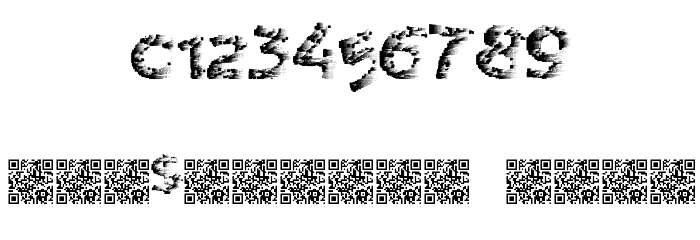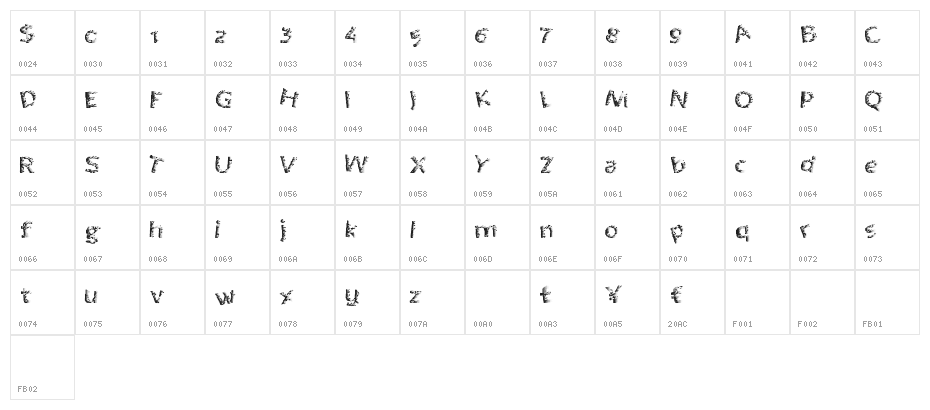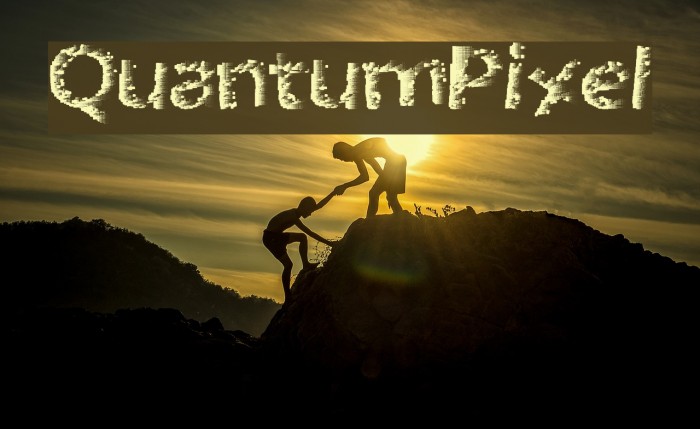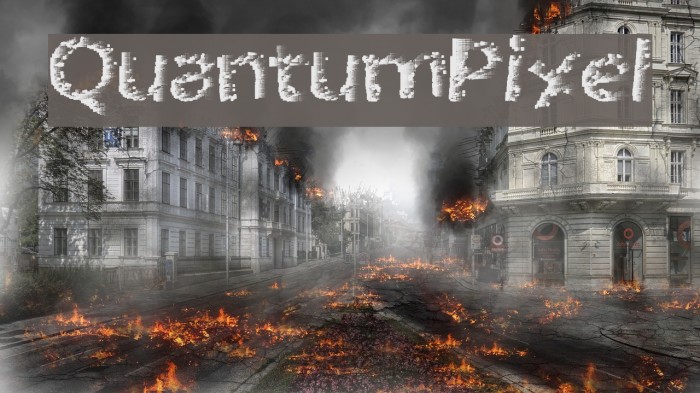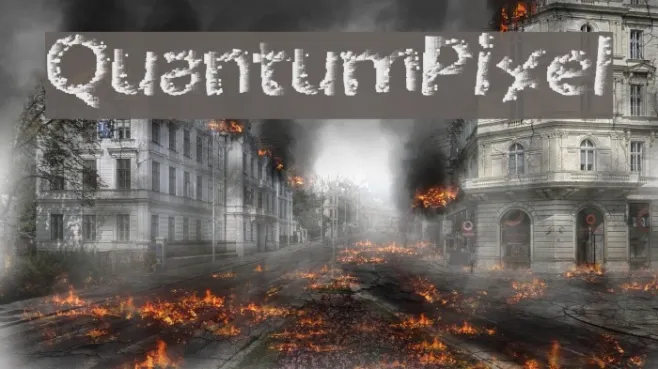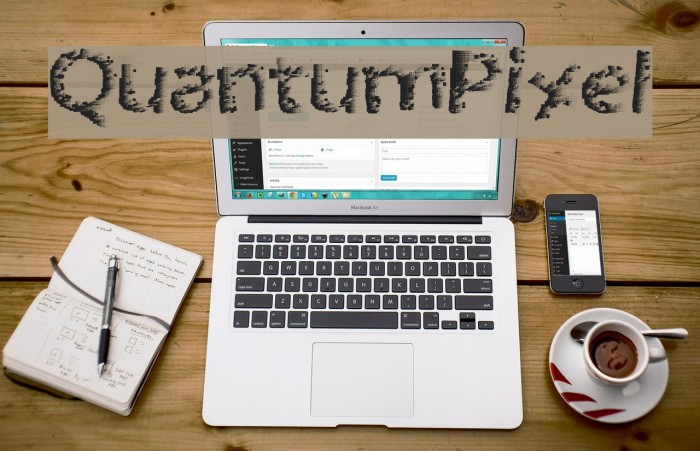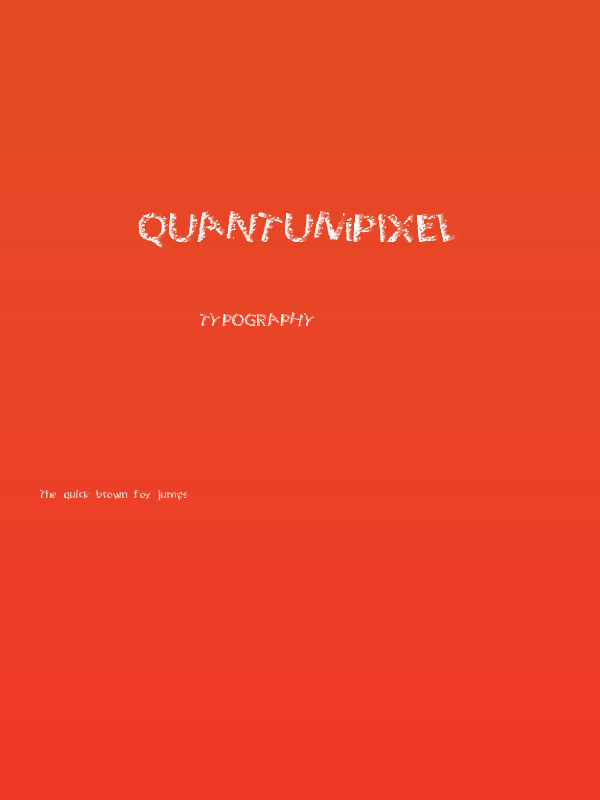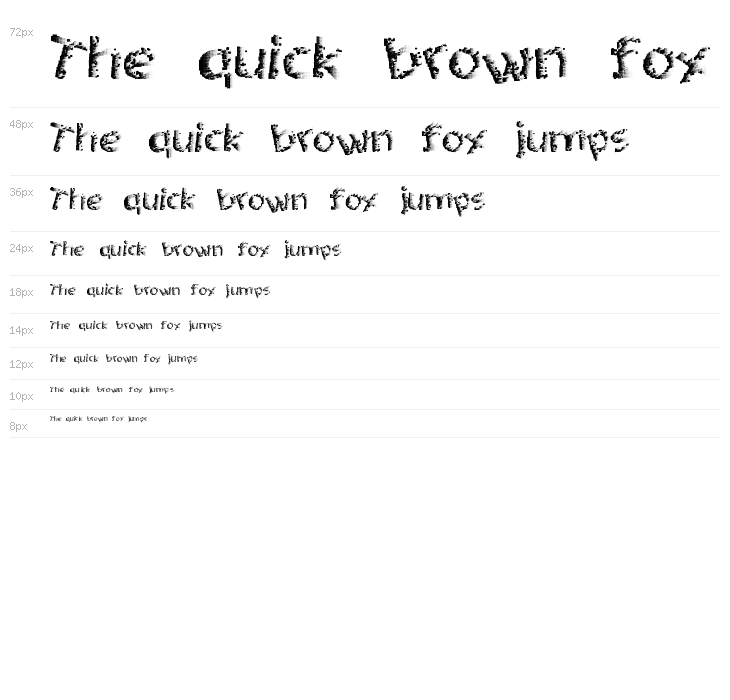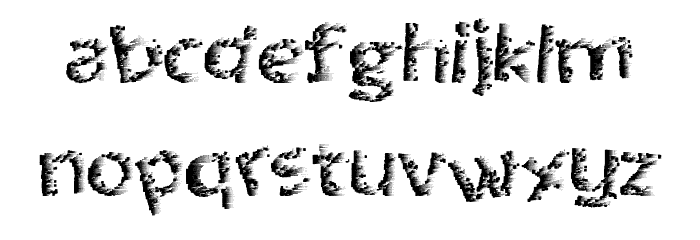
QuantumPixel Font
QuantumPixel Description
This font features a unique, pixelated design that gives it a digital and modern appearance. Each character is composed of small, fragmented blocks, creating a textured and dynamic look. The uppercase and lowercase letters maintain consistent proportions, while the numbers and special characters follow the same stylistic approach. The font's playful and tech-inspired aesthetic makes it suitable for creative projects that aim to capture a futuristic or digital theme.
| Proposed Projects | Ideal for digital art projects, tech-themed posters, video game graphics, and modern branding materials. |